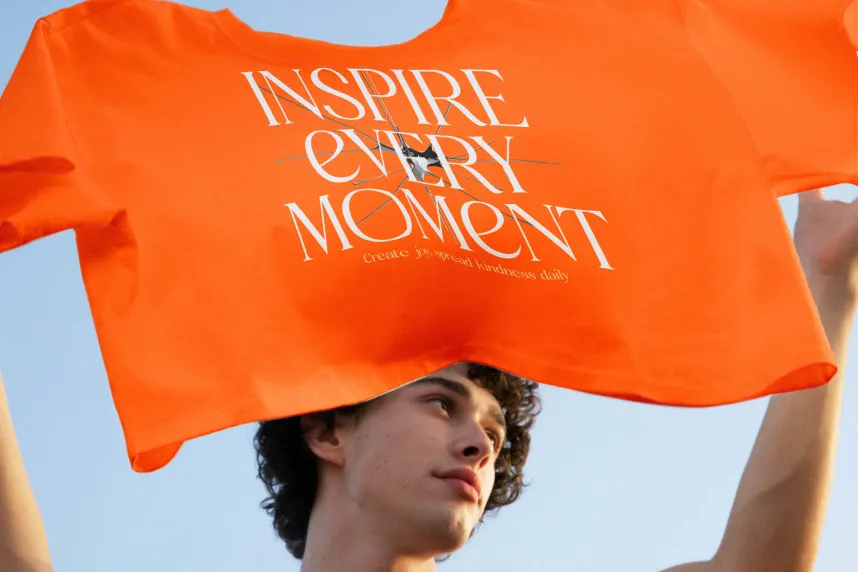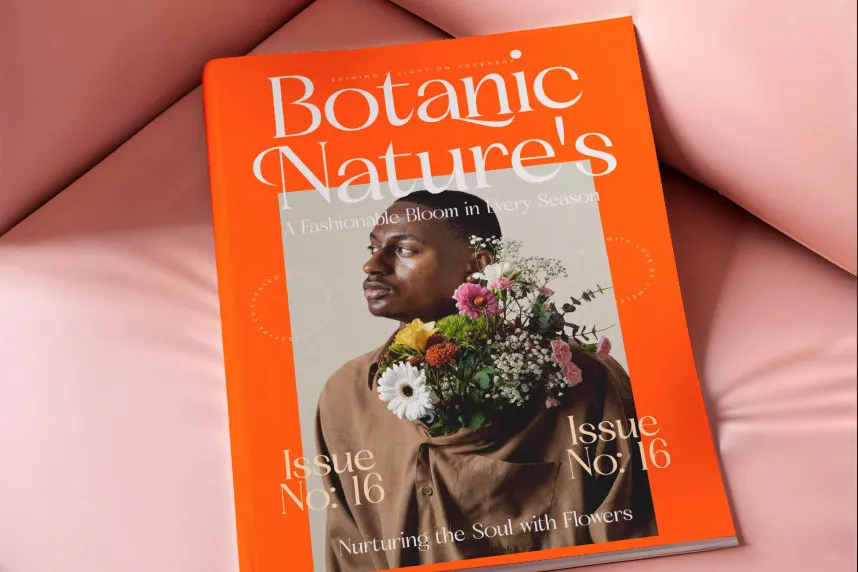
Amethast Stones Font is a beautiful and artistic typeface inspired by elegance and creativity. It looks luxurious yet easy to read, making it a favorite for designers who love graceful design.
The font features delicate curves and balanced letter spacing, giving it a classy and polished look. It fits perfectly in wedding invitations, branding, and decorative titles.
This typeface carries a romantic and sophisticated feel that turns ordinary text into something memorable. It shines best in elegant and feminine designs.
Its flowing lines create a sense of harmony, making it pleasing to the eye and perfect for high-quality projects.
Designers use it for packaging, social media posts, and creative artwork that needs a premium touch.
This Font blends style and readability, offering a timeless look that enhances any design with elegance and charm.